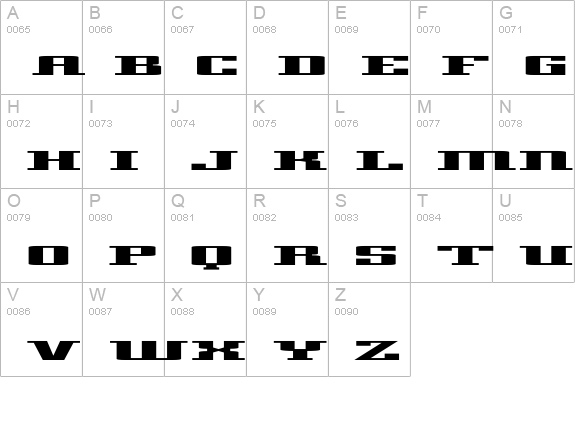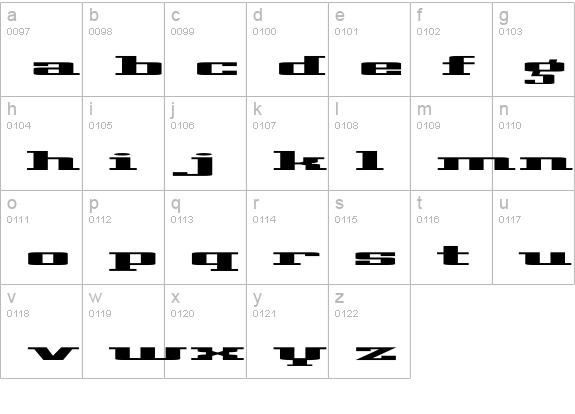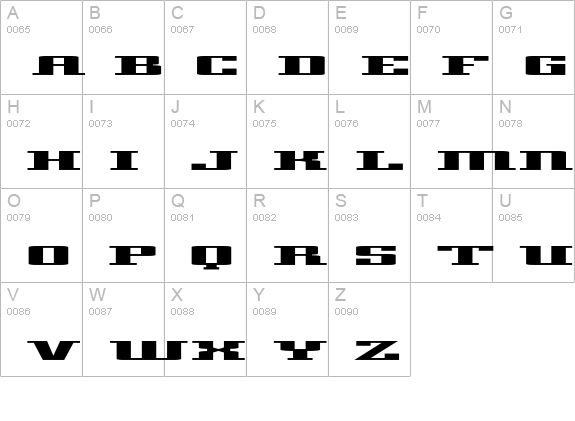
Gadzooks-Squared Font Details
Introducing Gadzooks-Squared font, a captivating and modern typeface that will elevate your designs to new heights. With its bold and angular letterforms, this font exudes a sense of strength and sophistication, making it perfect for a wide range of projects. Gadzooks-Squared font is a versatile choice that can be used in various design applications, including logos, branding, headlines, posters, and more. Its unique and eye-catching design will instantly grab attention and leave a lasting impression on your audience. But what makes Gadzooks-Squared font truly special is that it is available for free! Yes, you heard it right. This remarkable font can be freely downloaded at FontsMarket.com, a trusted and reputable platform for high-quality fonts. By offering Gadzooks-Squared font for free, we aim to provide designers, creatives, and enthusiasts with a valuable resource to enhance their projects without breaking the bank. Whether you are a professional designer or a hobbyist, this font is the perfect addition to your font library. With its easy-to-read characters and clean lines, Gadzooks-Squared font ensures excellent legibility across various mediums and sizes. Its extensive character set includes uppercase letters, lowercase letters, numbers, symbols, and punctuation marks, giving you the flexibility to create captivating designs with ease. So why wait? Download Gadzooks-Squared font today and unleash your creativity. With its striking aesthetic and free availability, it's the perfect font to take your designs from ordinary to extraordinary. Don't miss out on this incredible opportunity to add a touch of elegance and sophistication to your projects. Get Gadzooks-Squared font now, exclusively at FontsMarket.com.